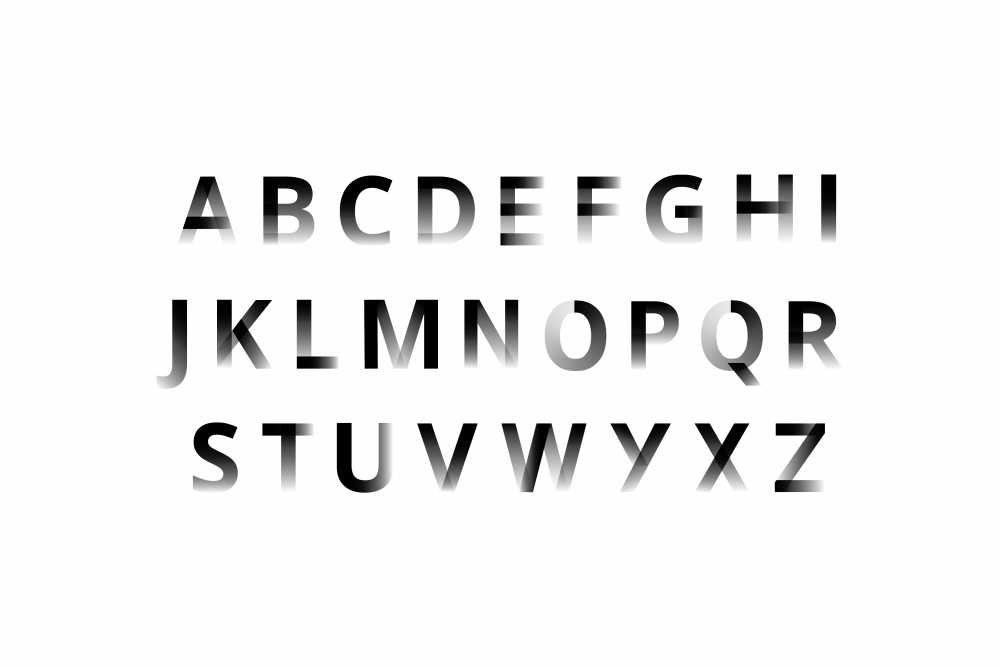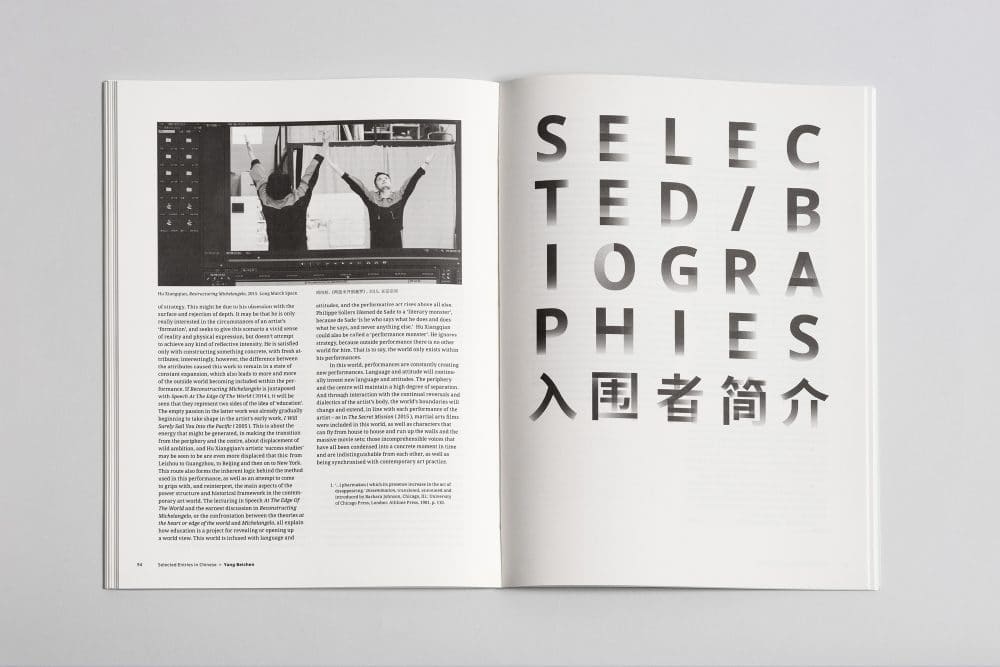
Exhibition Reviews Annuals
International Awards for Art Criticism ( IAAC ), 2016–
London & Shanghai
Type design for Exhibition Review Annuals, a contemporary art criticism competition with submissions from Chinese and English writers.
The International Awards for Art Criticism is modeled on an inclusive principle, where anonymous submissions ensure equal opportunities for all applicants. This notion of inclusivity is carried through to the website design, for example its layout looks at commonly recognised formats, such as Microsoft Word. Within the design the user is able to scale the Chinese and English text accordingly, granting them freedom to arrange the website as they prefer.
The typeface design draws upon systems of penmanship. Each handwritten Chinese character and English letter is constructed in a precise order. Disrupting these traditions of mark making, Chinese characters were written as if by a Western hand ( and visa versa ), with each stroke depicted in ink, which slowly fades.